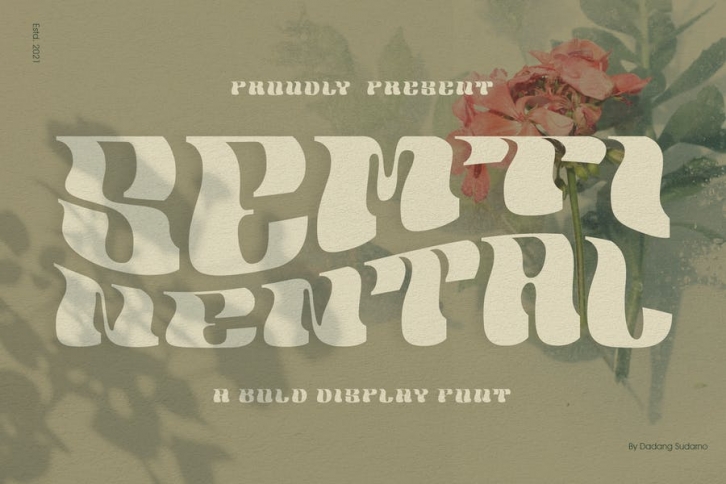
SEMTINENTAL is a bold display font which psychedelic style. Easy tweaking shape make the headline, banner, title and wordmarks more outstanding when it is used.